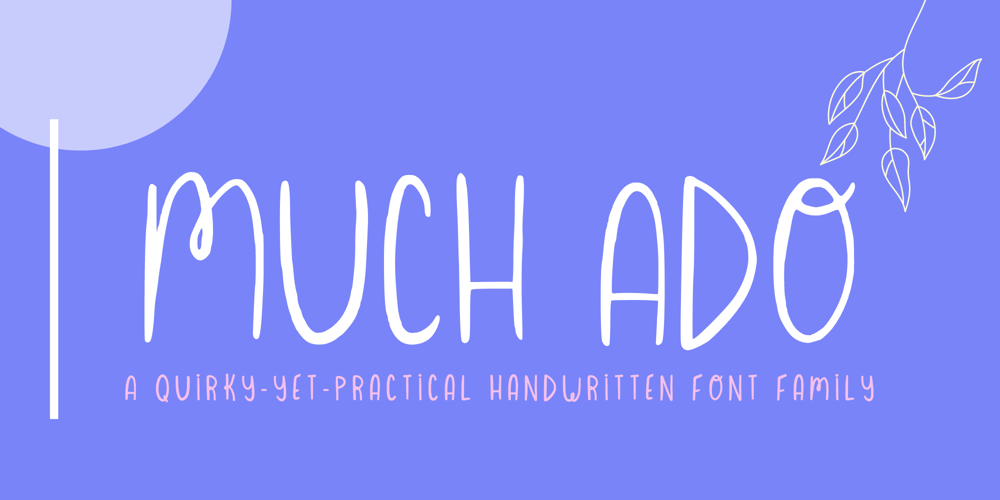
Much Ado Font Family was designed by Rose Varda and published by The Very Awkward. Much Ado contains 3 styles and family package options. Much Ado is a quirky-yet-practical all-caps handwritten font family with just enough subtle variation between uppercase and lowercase letters to keep things interesting. It’s pretty great on: Informative infographics Clever indie comics K-Pop cover band posters (and other types of posters) Invitations to cool parties for cool people Eye-catching Instagram posts Sliced bread …or anything that needs a pinch of fun and a double dose of legibility. Whimsical but supremely readable, Much Ado is imperfectly perfect for both body and headers.